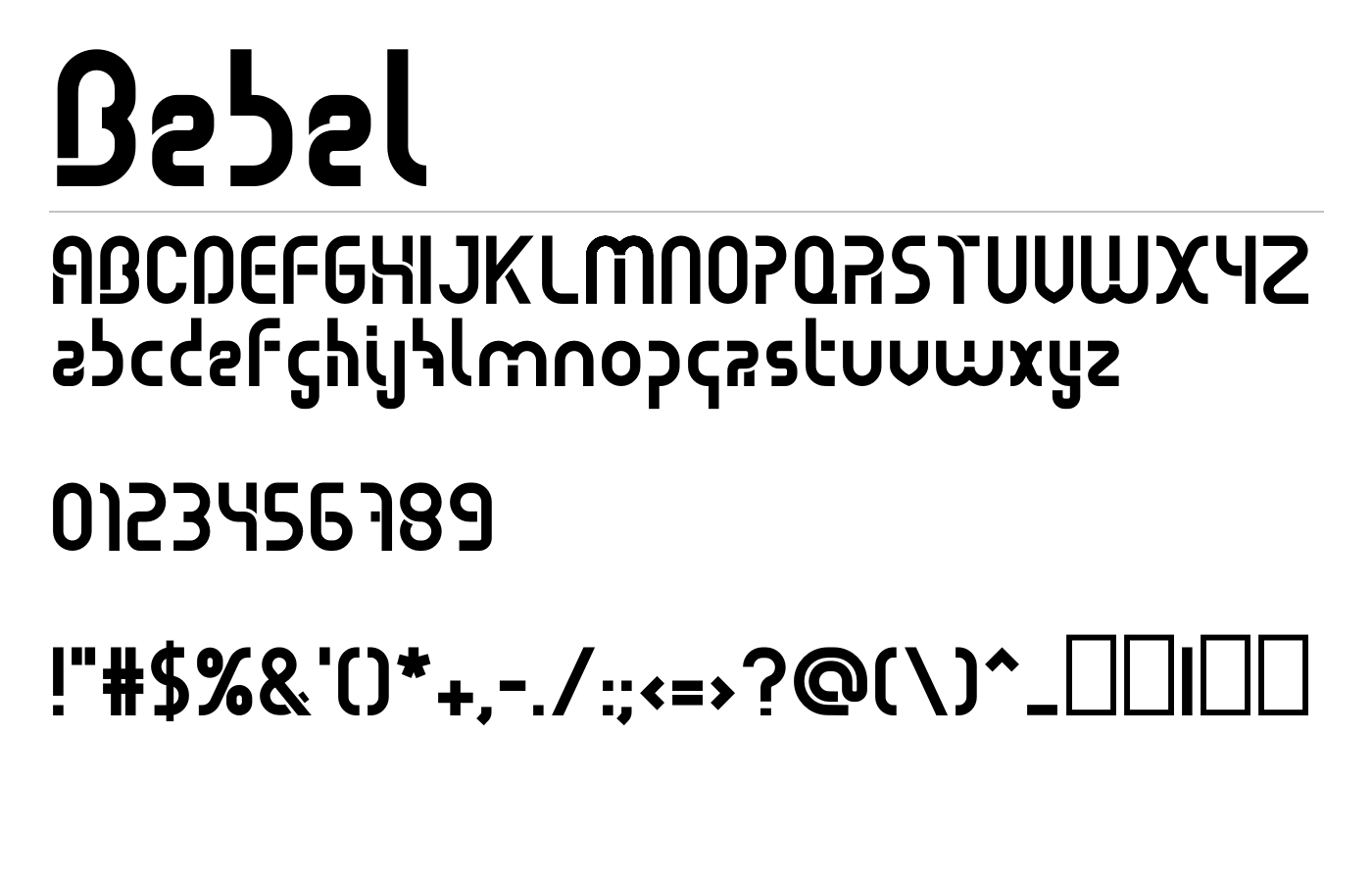
Bebel is a bold, geometric sans-serif font featuring unique, angular letterforms with a modern and futuristic vibe. Its high x-height and consistent stroke weight give it a strong, compact feel, making it ideal for eye-catching headlines, branding, or editorial use where a contemporary and distinctive style is desired. This font works well for creative projects that want to stand out with a sleek, tech-inspired personality.
Bebel Font
About Bebel Font
| Font family | Bebel Font |
| Designer | Camille Belliot |